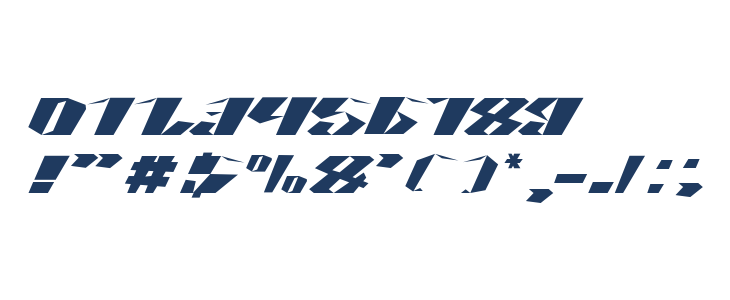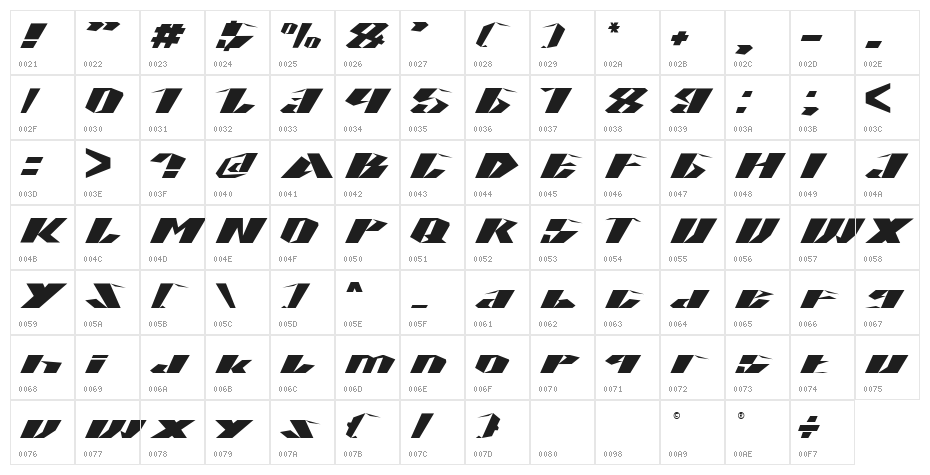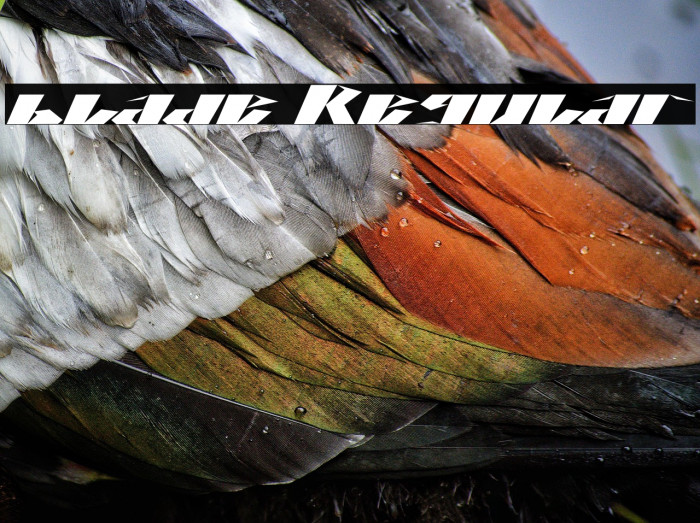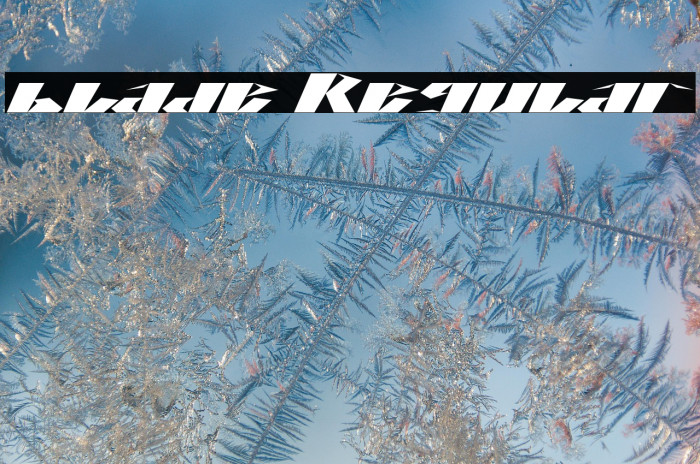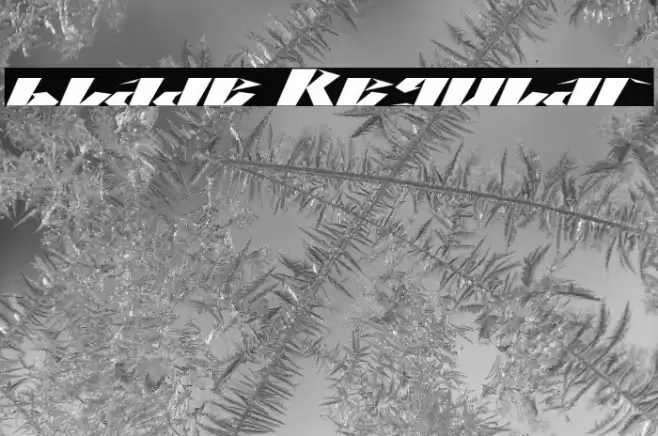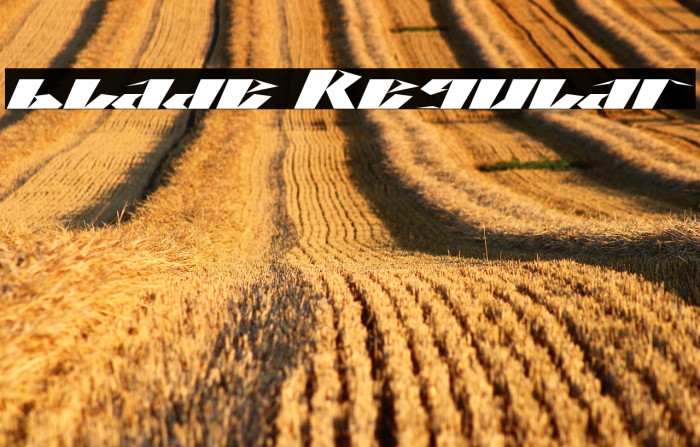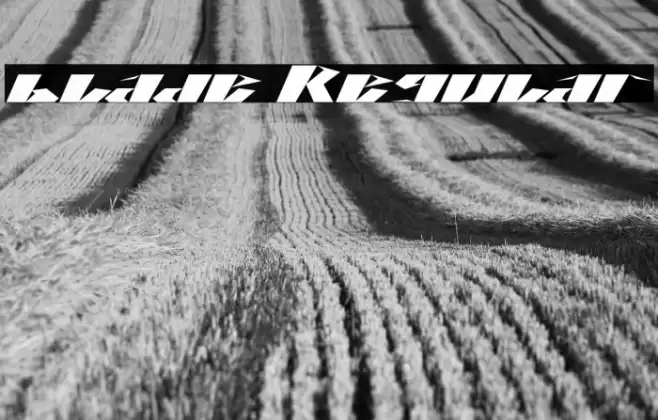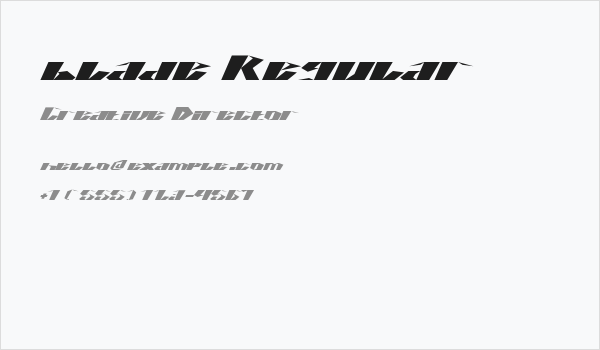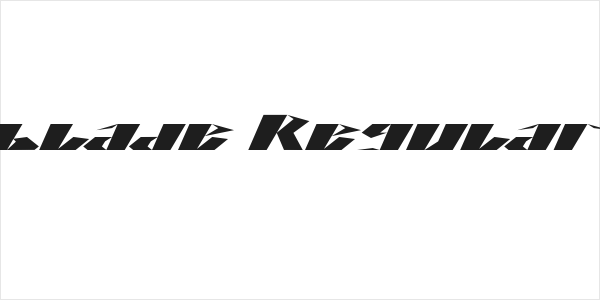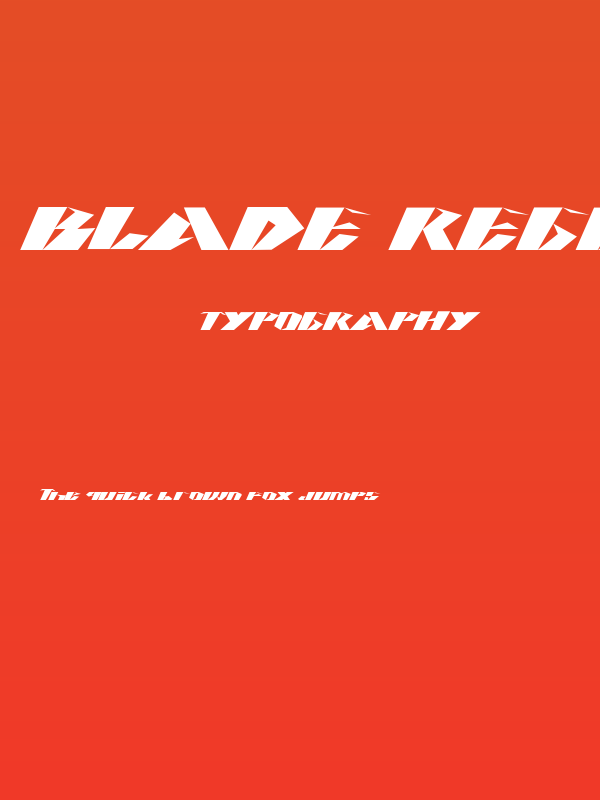
blade Regular Font
blade Regular Description
This font features a bold and angular design, characterized by sharp edges and a dynamic, forward-leaning stance. The letters are crafted with a distinct geometric style, giving them a futuristic and aggressive appearance. The uppercase and lowercase letters maintain a consistent aesthetic, with each character exhibiting a unique cut or slice that adds to the overall edgy feel. Numbers and special characters are equally stylized, ensuring a cohesive look across all elements. The font's striking design makes it ideal for projects that require a strong visual impact.